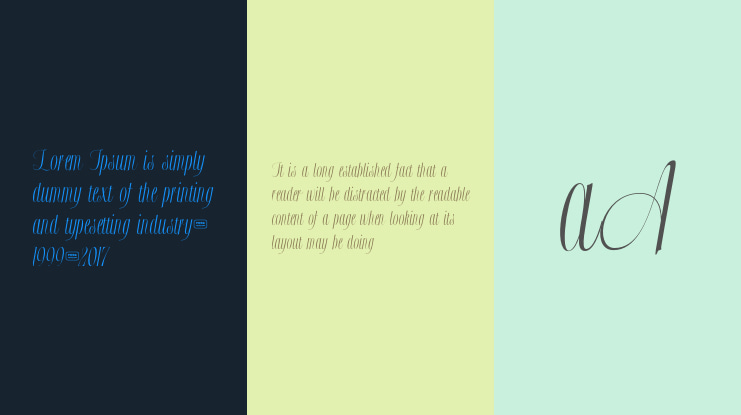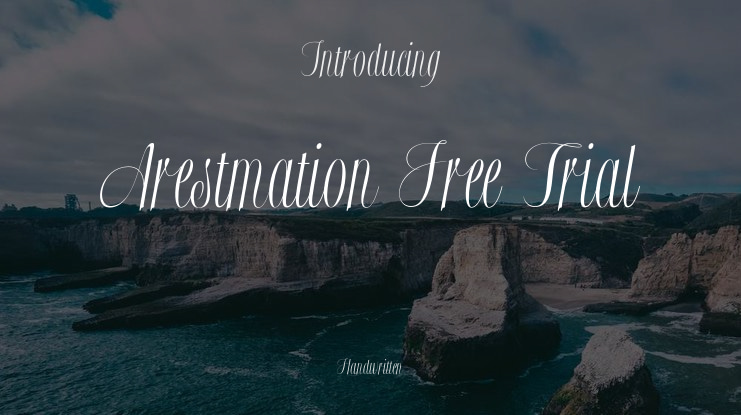
Arestmation Free Trial Font
Arestmation is a refined Copperplate script typeface that embodies elegance, precision, and timeless beauty. With its smooth, flowing strokes and graceful contrast, this modern script font is ideal for wedding invitations, luxury branding, certificates, elegant packaging, and formal stationery. Arestmation draws inspiration from classic penmanship while adding a fresh, contemporary flair—perfect for designs that require a touch of class and sophistication. Let your words shine with Arestmation’s luxurious and polished calligraphic style.